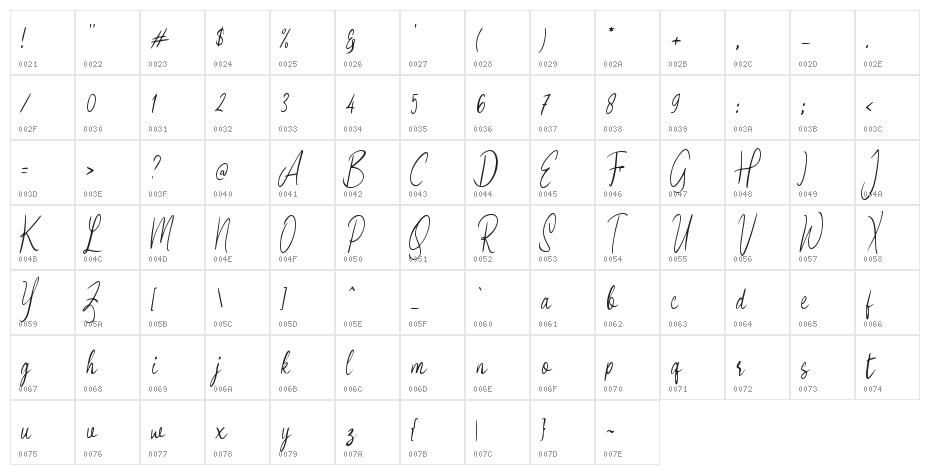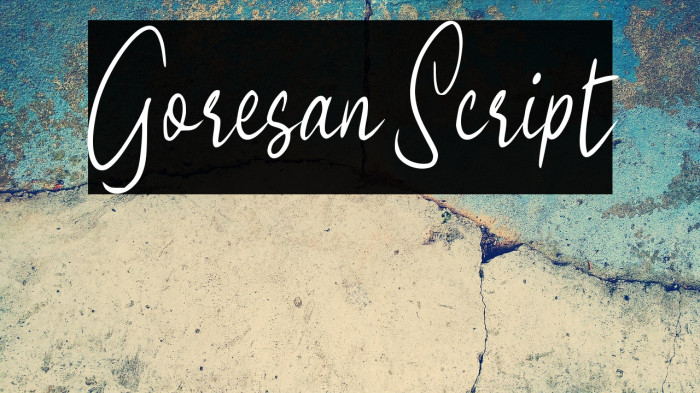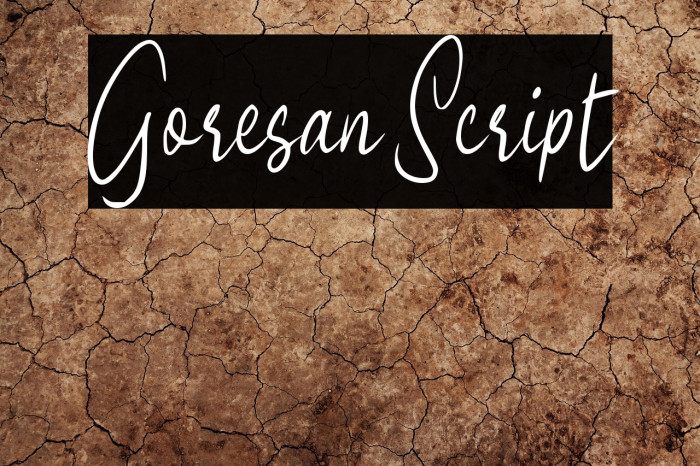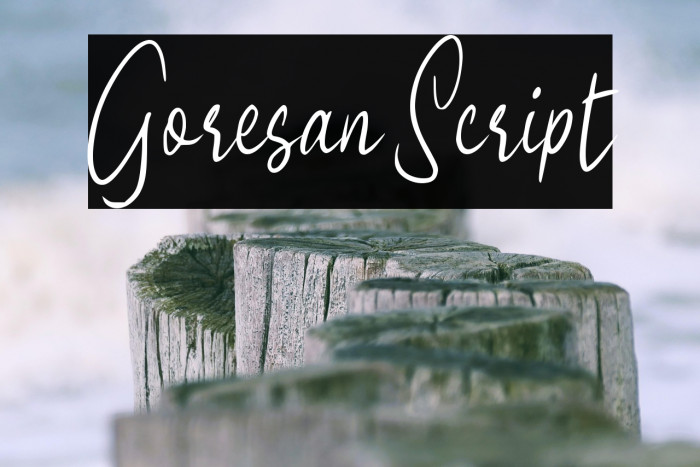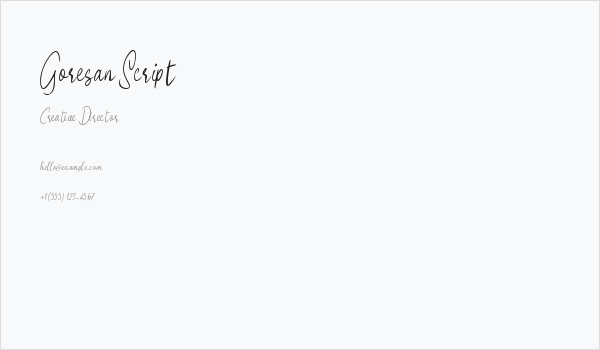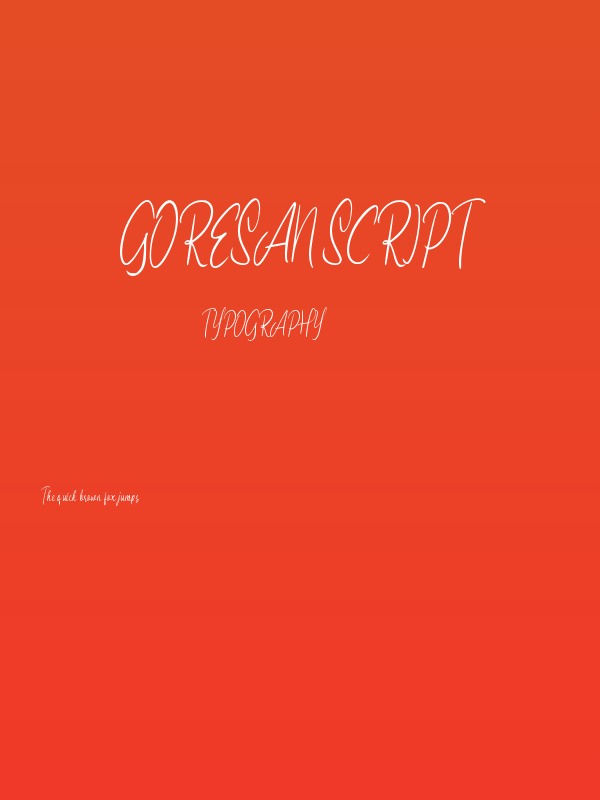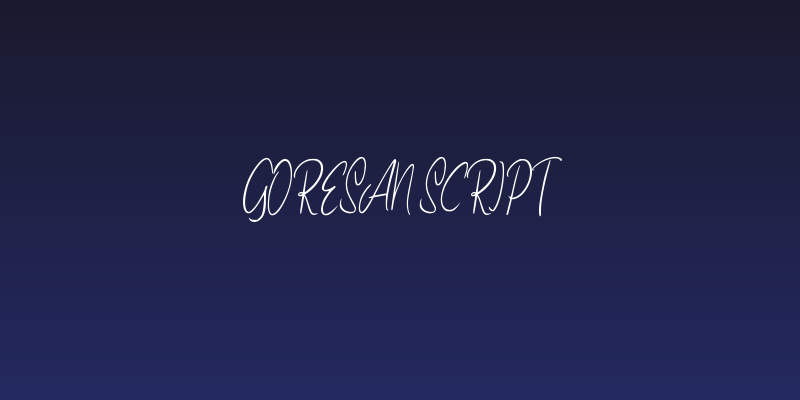
Goresan Script Font
Goresan Script Description
This font exudes a lively and dynamic character with its fluid, cursive style. The letters are elegantly connected, creating a seamless flow that mimics natural handwriting. The uppercase letters are tall and slightly slanted, adding a sense of movement and grace. The lowercase letters maintain a consistent rhythm, enhancing readability while preserving the script's artistic flair. Numbers and special characters are designed with the same attention to detail, ensuring a cohesive look across all text elements. This font's playful yet sophisticated appearance makes it suitable for a variety of creative applications.
| Use Case | Logos, Headlines, Invitations |
| Proposed Projects | Ideal for wedding invitations, greeting cards, branding, and social media graphics. |